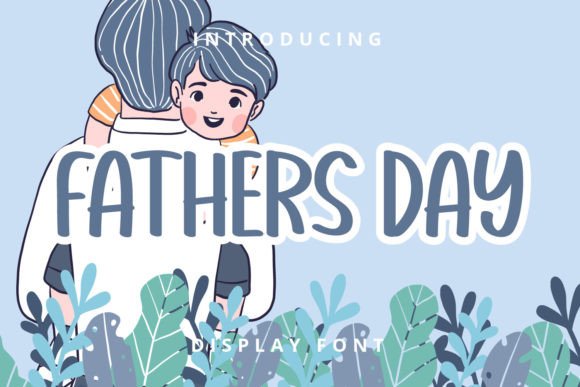
In the realm of digital artistry, where words dance and emotions bloom, lies a font of unparalleled charm, the Fathers Day font, a display font that captivates the essence of joy and celebration. Crafted by the talented studio of Planetz, this font is a masterpiece of creativity, specifically designed to ignite the spark of happiness in every design.
With its playful, easy-going style, the Fathers Day font evokes the warmth of a loving embrace, the carefree spirit of childhood, and the boundless energy of birthday celebrations. Each letter, meticulously crafted with a touch of whimsy, dances across the screen, carrying a message of pure delight.
Stepping into the world of Fathers Day is like embarking on an artistic journey where colors burst forth in vibrant hues, and laughter fills the air. This font is a perfect fit for children-themed designs, adding a dash of magic and wonder to every project. Its vibrant personality shines through in invitations, greeting cards, posters, and any creation that seeks to spread joy and positivity.
The Fathers Day font is more than just a collection of letters; it is an expression of love, happiness, and the shared moments that make life truly special. It transforms ordinary words into captivating messages, conveying heartfelt emotions that resonate with audiences of all ages.
As you explore the endless possibilities offered by the Fathers Day font, you will discover a treasure trove of creative opportunities. Whether you're designing a cheerful birthday invitation, creating playful social media graphics, or crafting heartwarming family photos, this font will become your trusted companion.
With its ability to make words dance and emotions soar, the Fathers Day font is the perfect choice for those seeking to infuse their designs with a sense of pure joy. It is the font that says, "Celebrate life, embrace happiness, and let your creativity shine!"